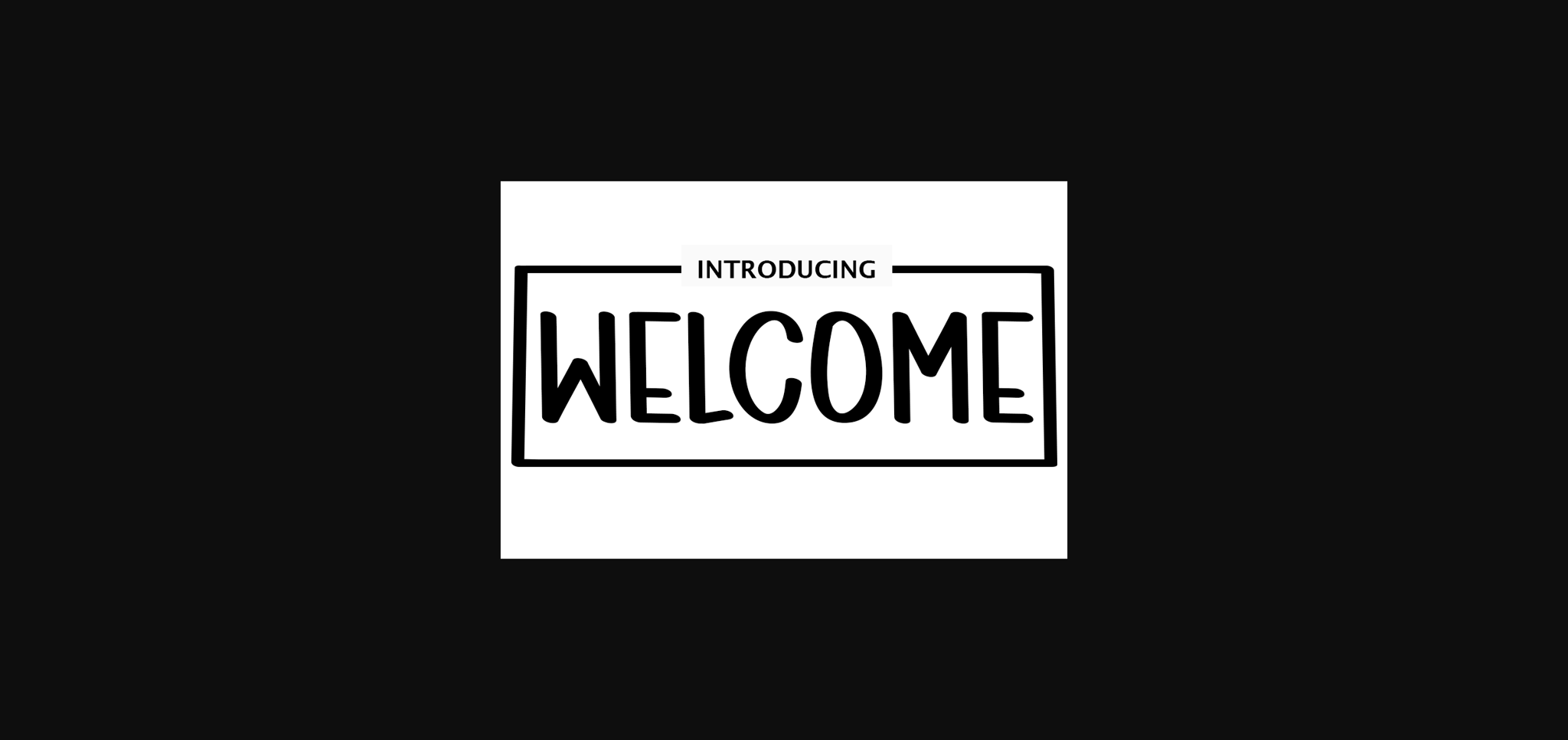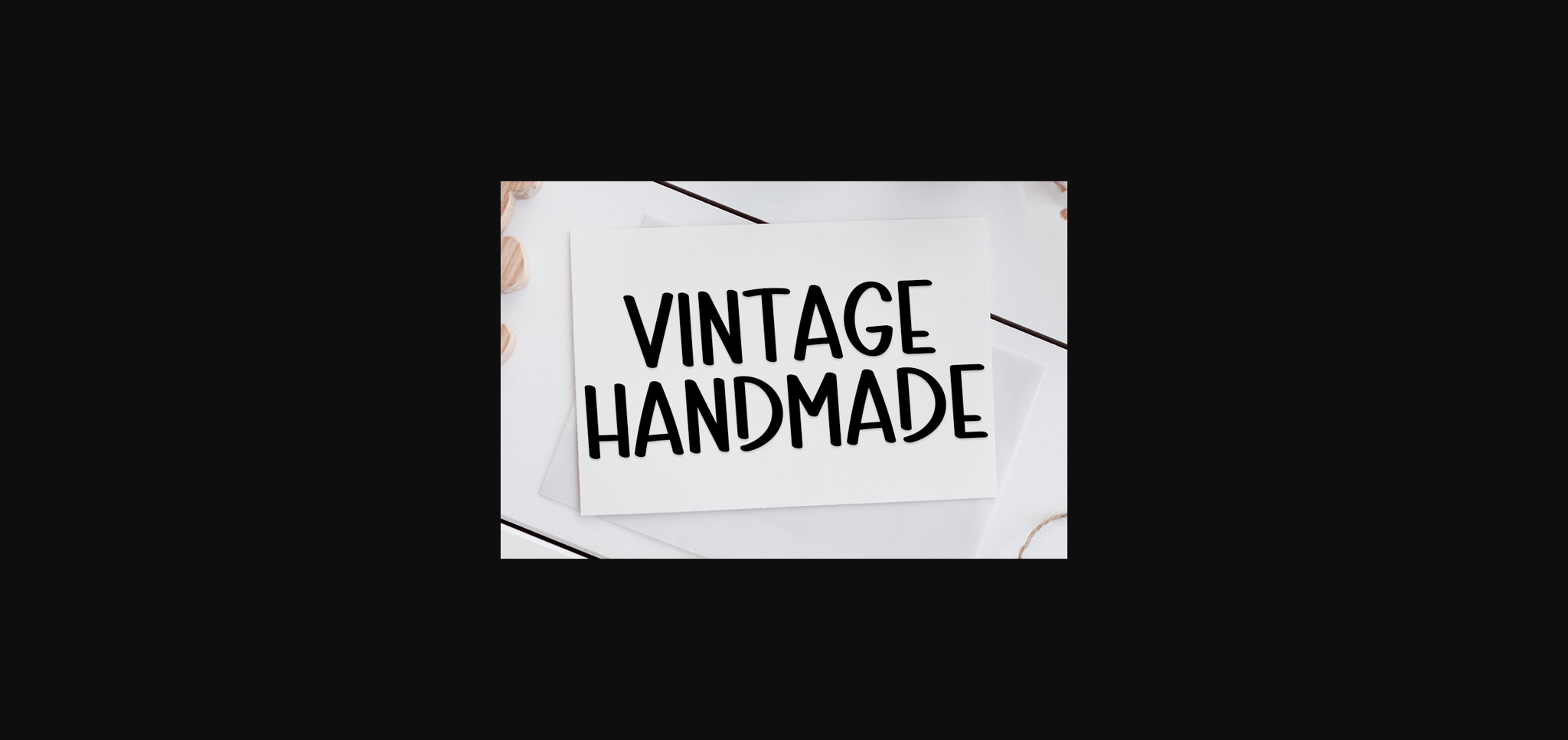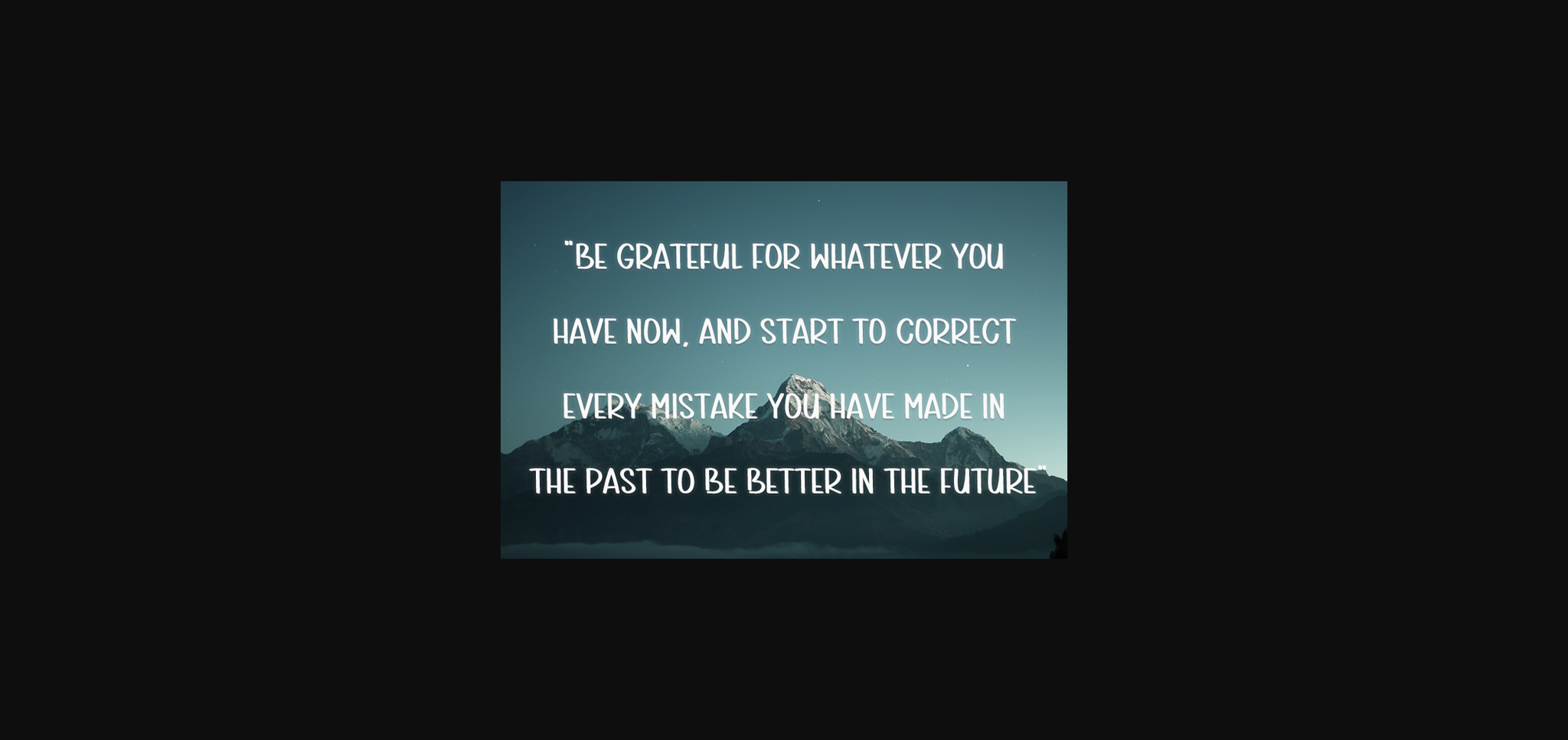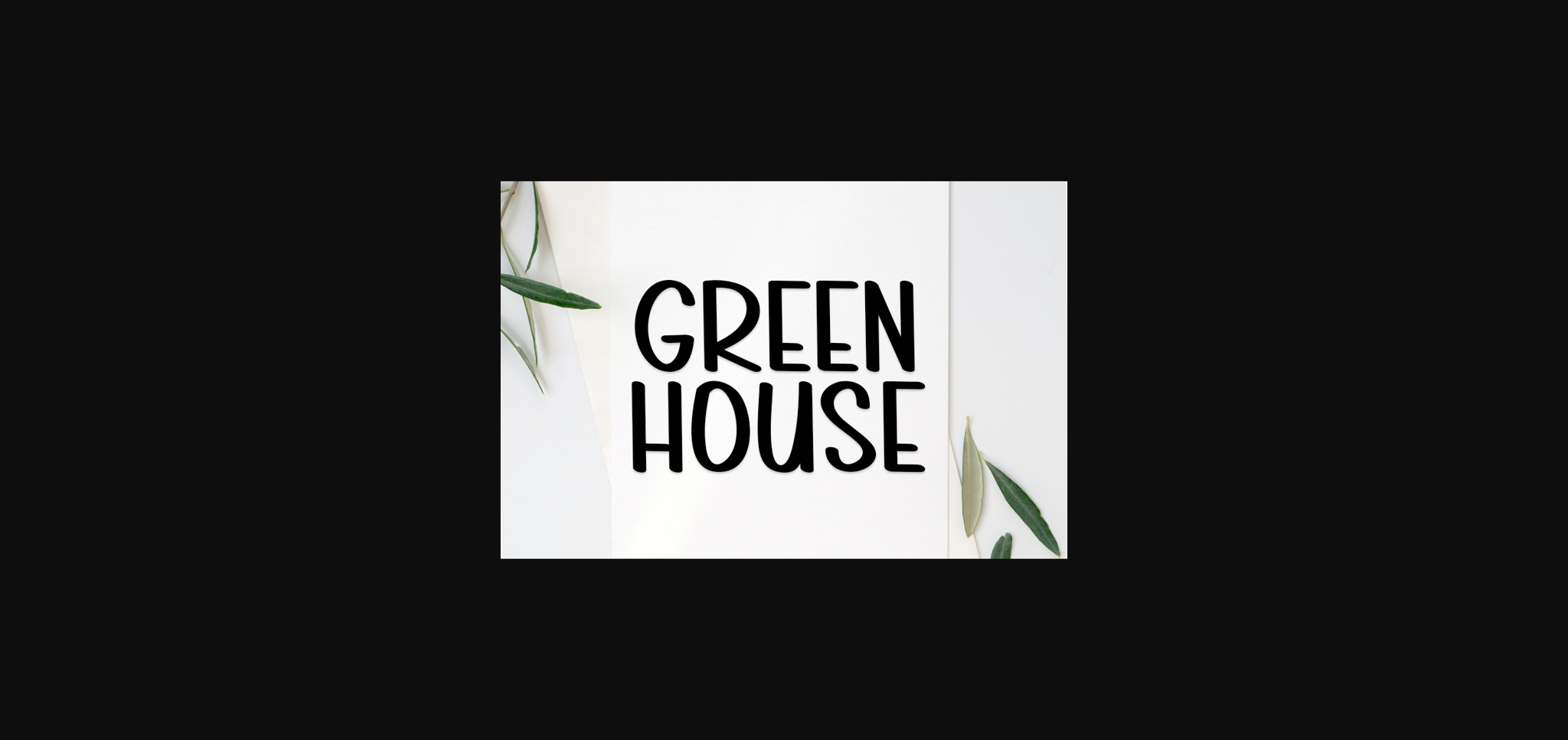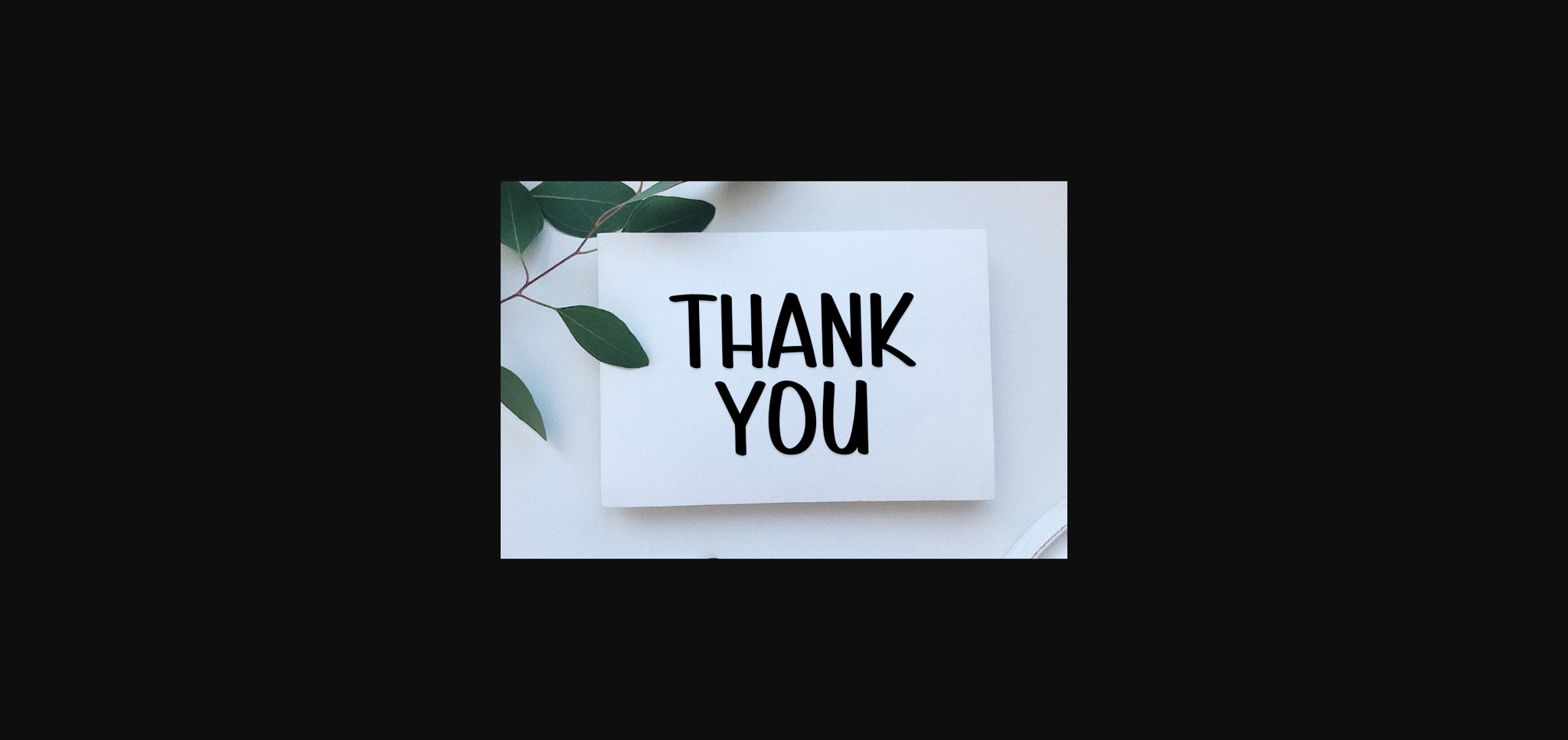
Welcome Font
About Welcome Font
Welcome is a cool and modern display font. Whether you’re using it for crafts, digital design, presentations, or creating greeting cards, this font has the potential to be your go-to font, whatever the occasion.